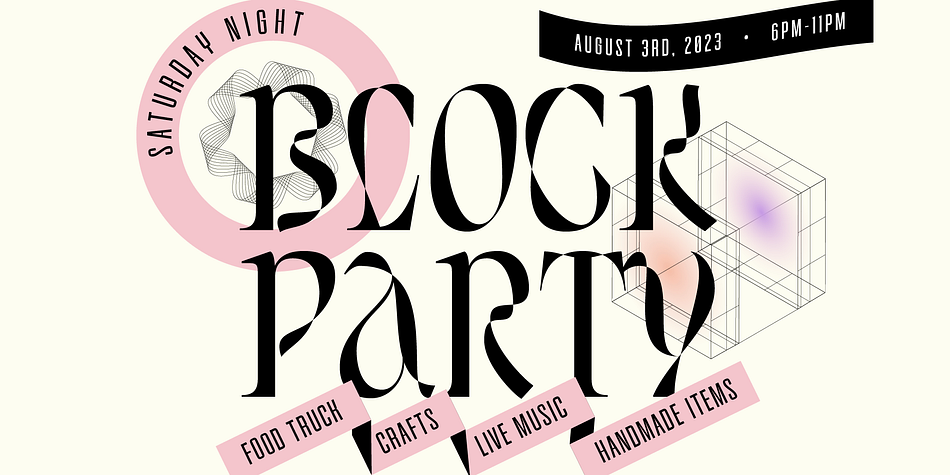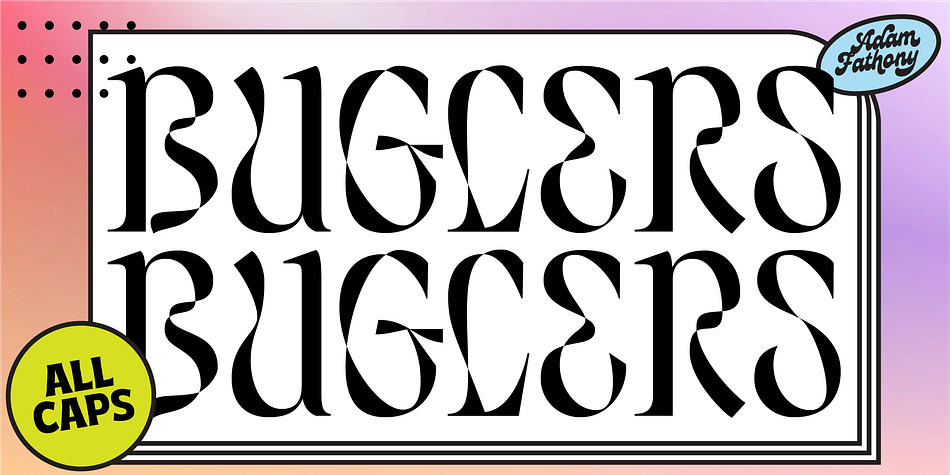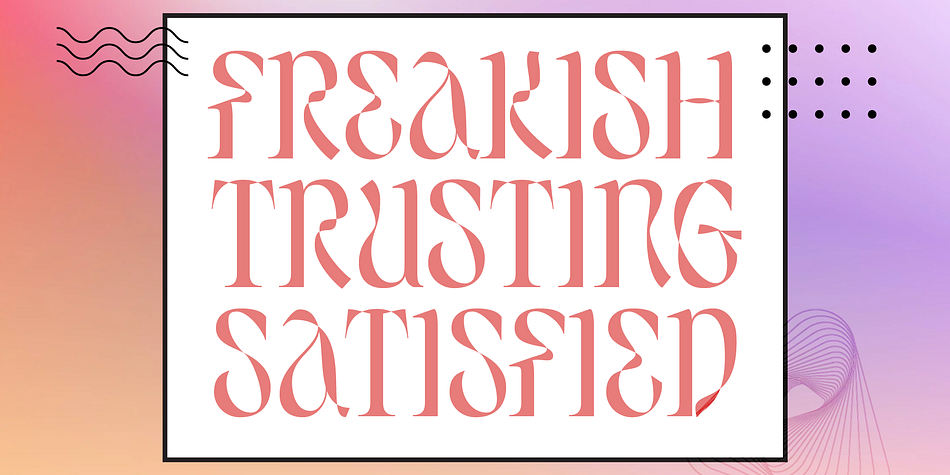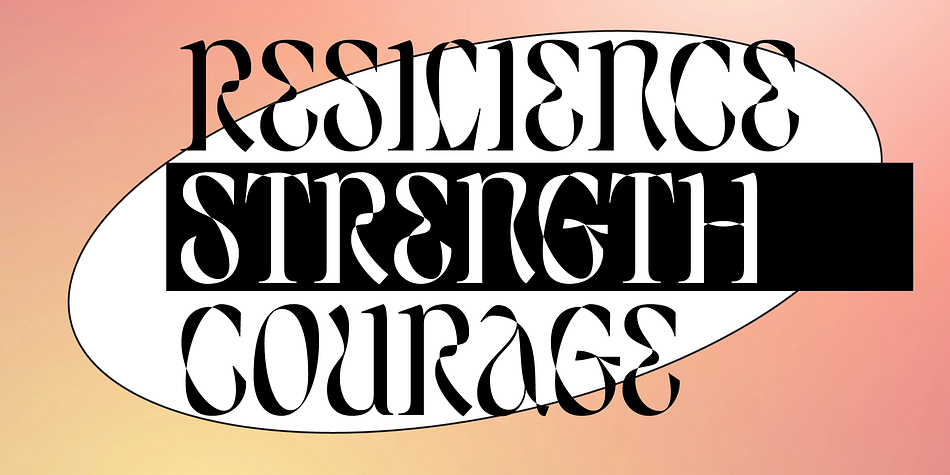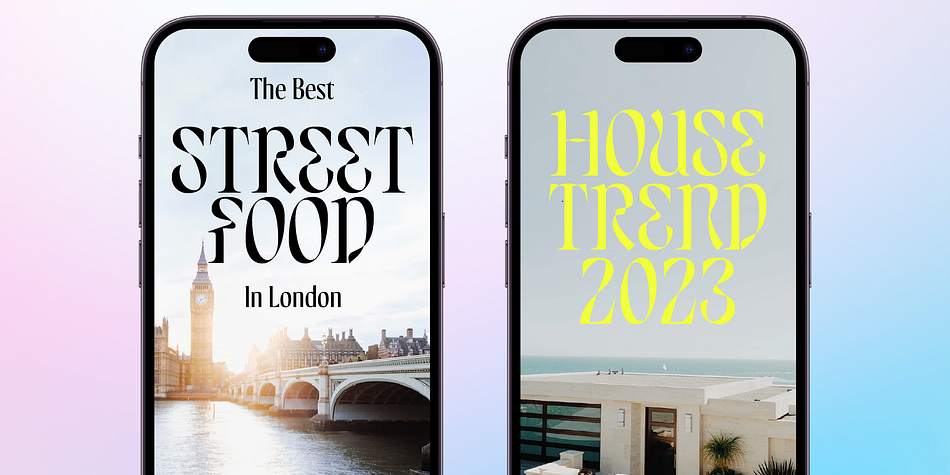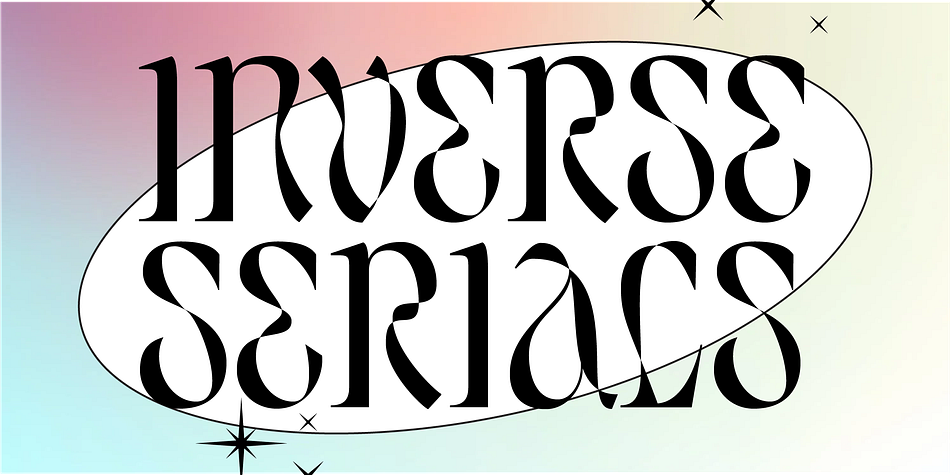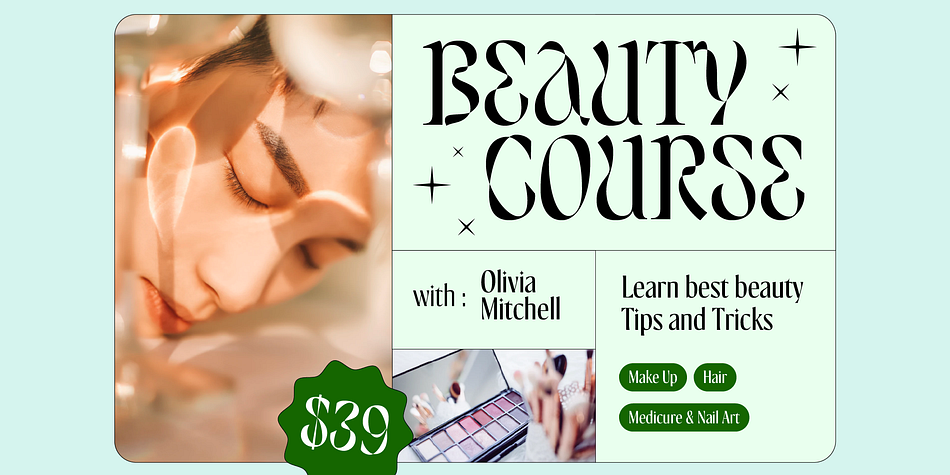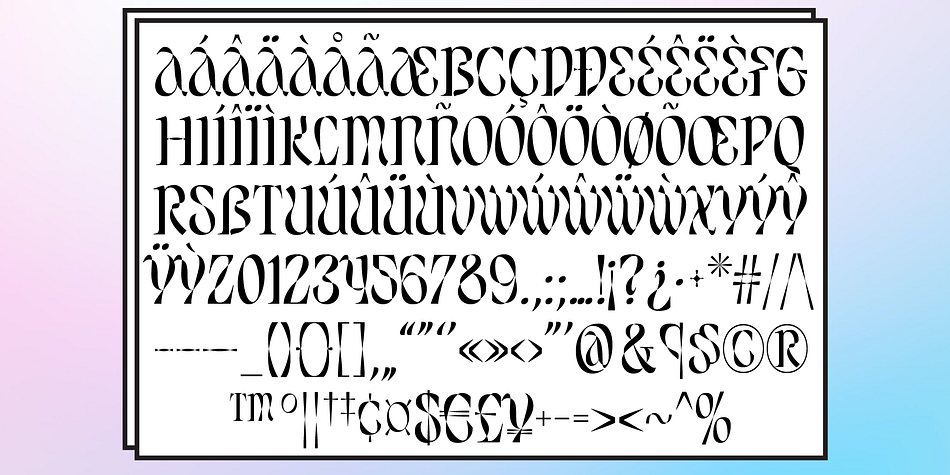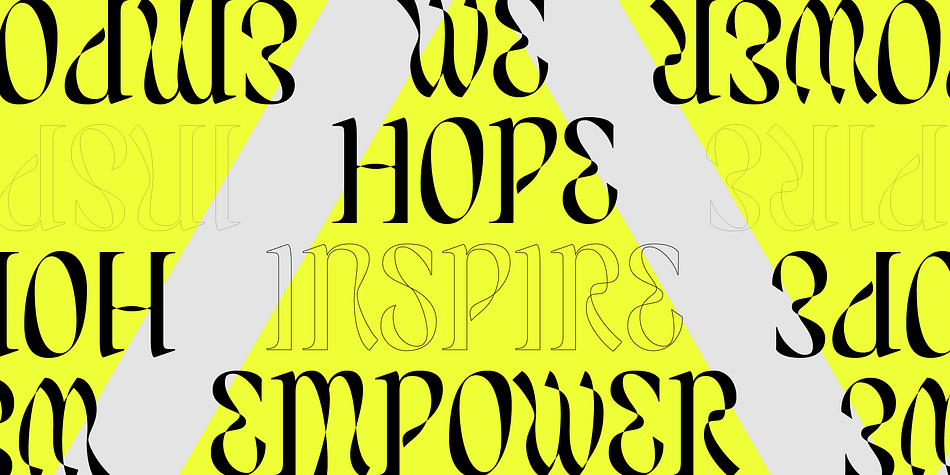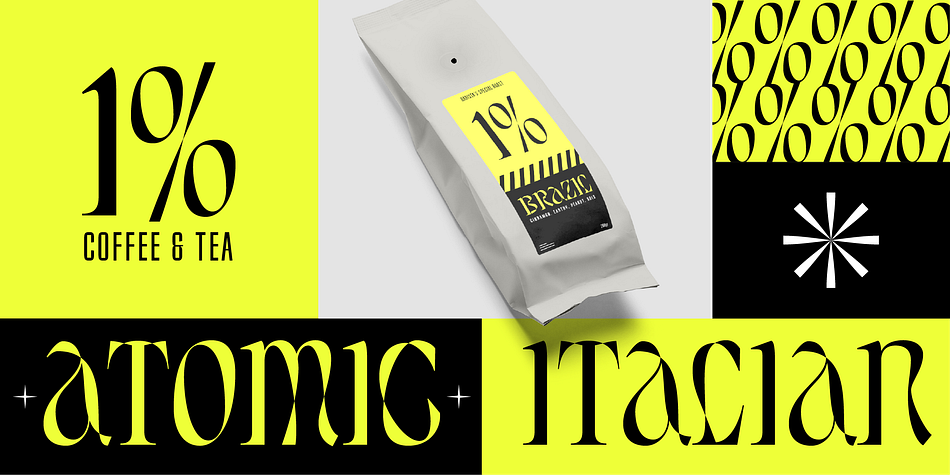
BUGLERS
Buglers is a display font family published by AF Studio.
Introducing “Buglers” - an avant-garde font that pushes the boundaries of experimental typography. With its captivating style characterized by extreme path collisions, this sans-serif typeface delivers a mesmerizing and unconventional visual experience. Embrace the unexpected as Buglers takes you on a journey of wavy and undulating letterforms, setting the stage for a display like no other.
Buglers is designed to steal the spotlight, making it the perfect choice for eye-catching displays and powerful headlines that demand attention. Its bold and dynamic nature lends itself to creating striking visuals that leave a lasting impression on your audience.
However, while Buglers shines brilliantly in display settings, it’s not recommended for prolonged use in lengthy texts. The daring and chaotic nature of the font can make it challenging to maintain readability over extended paragraphs, making it more suitable for short bursts of impactful content.
Unleash the creative potential of “Buglers” and explore the uncharted territories of experimental typography. Whether you’re designing posters, logos, or attention-grabbing banners, this font will infuse your projects with an air of innovation and intrigue, leaving onlookers spellbound by its unconventional beauty.